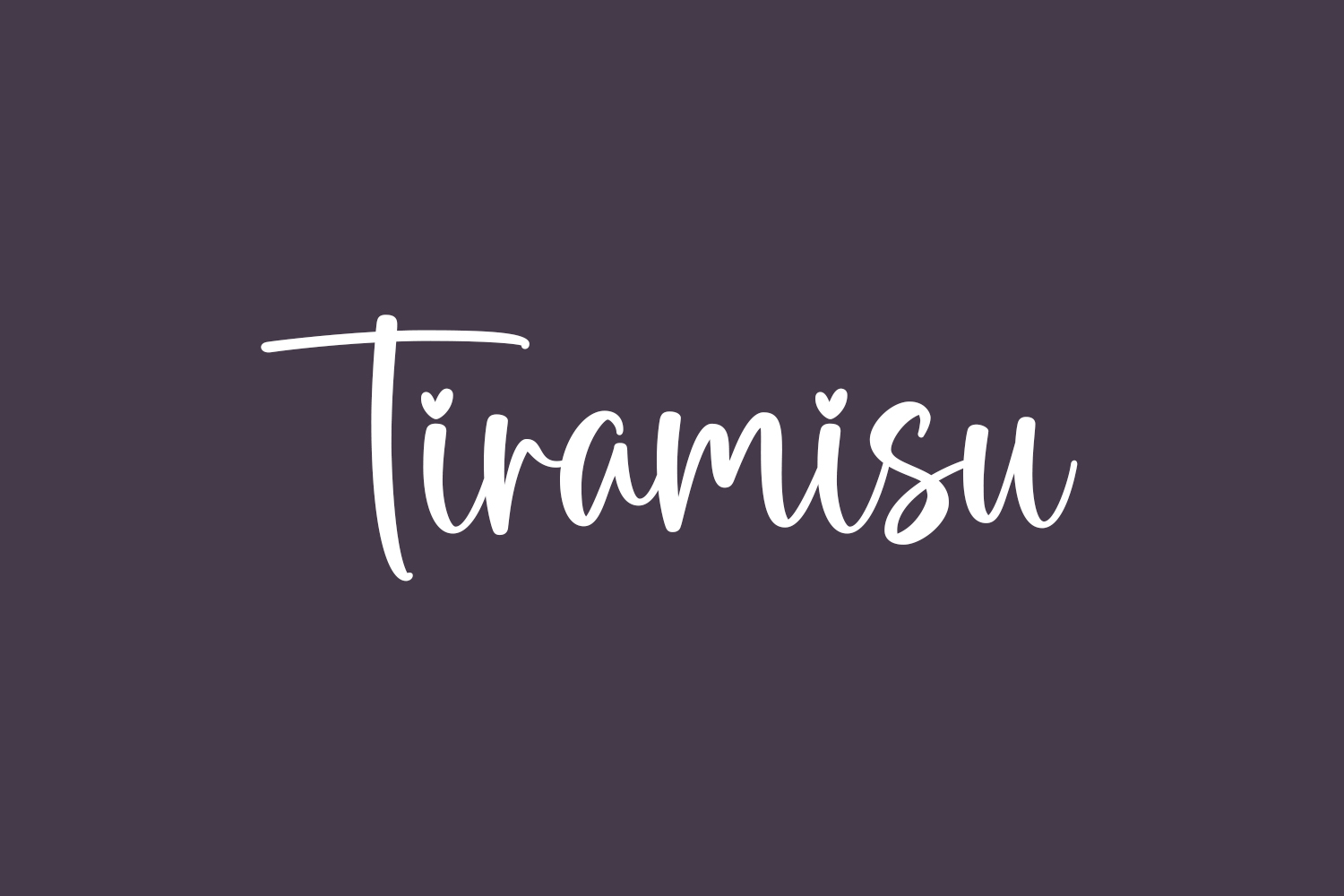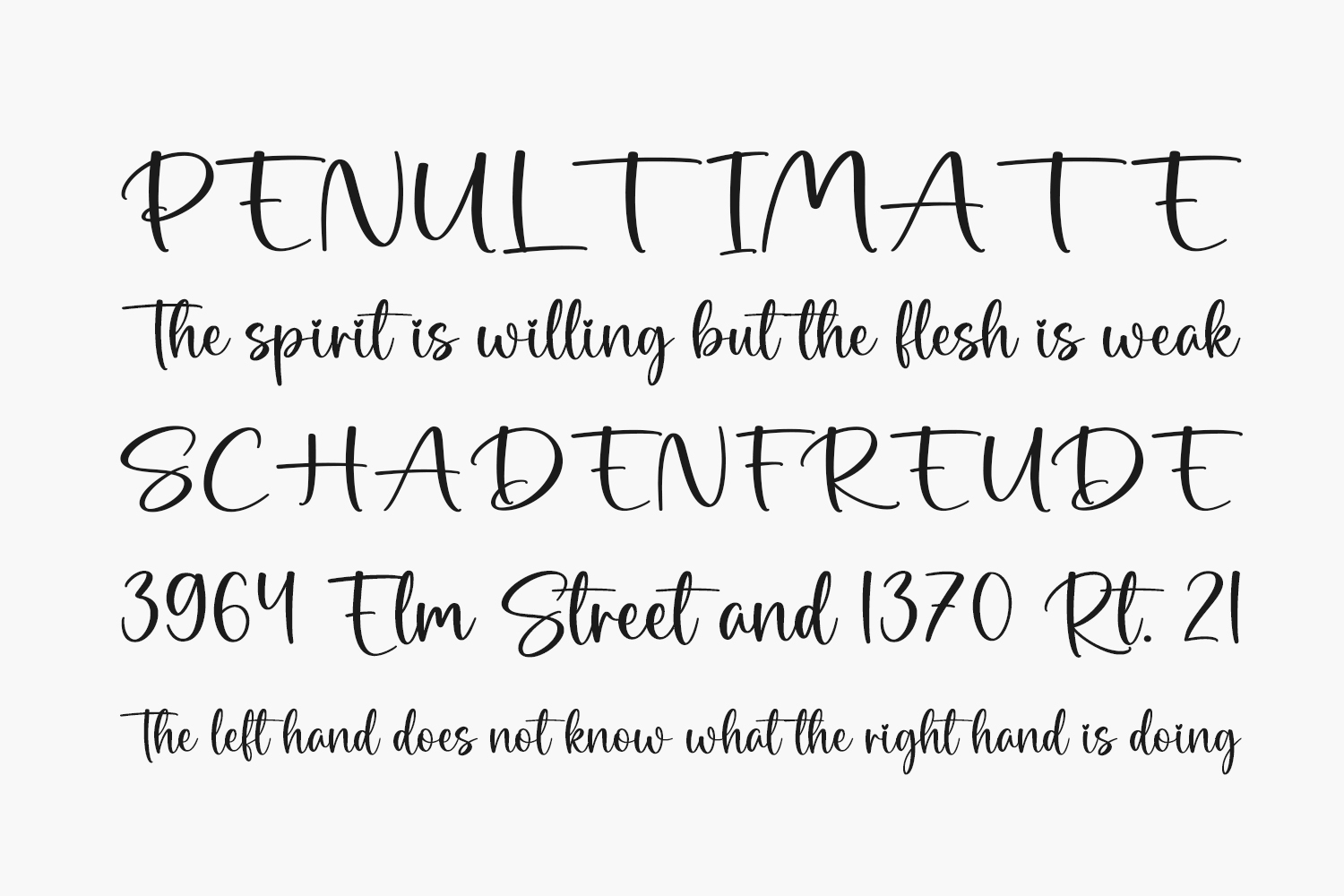
Experience the sophistication of Tiramisu Free Font, a refined handwritten font. Its delicate, well-balanced characters effortlessly complement various designs, adding elegance to your creative projects. Download the font for free if you need it for personal use or purchase the full version for commercial use.